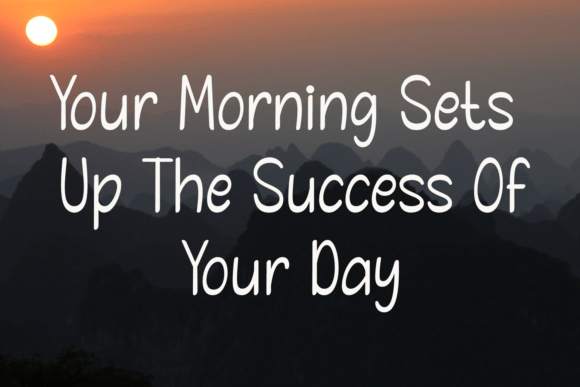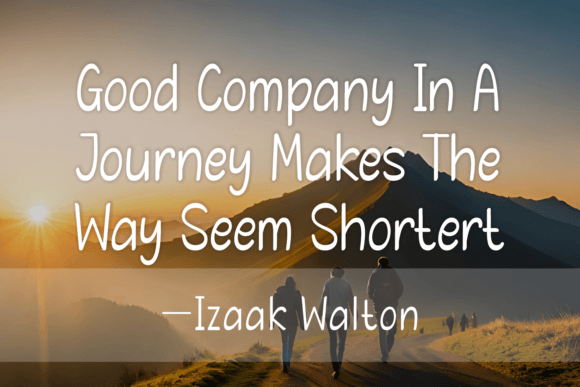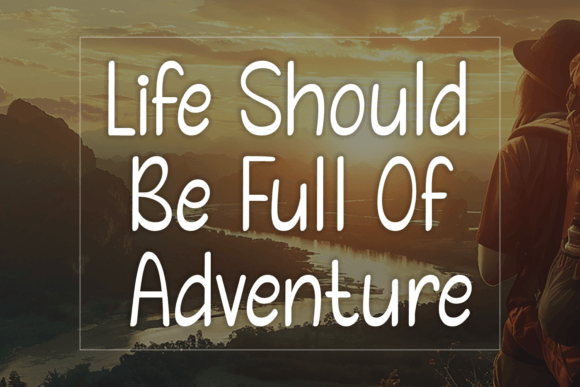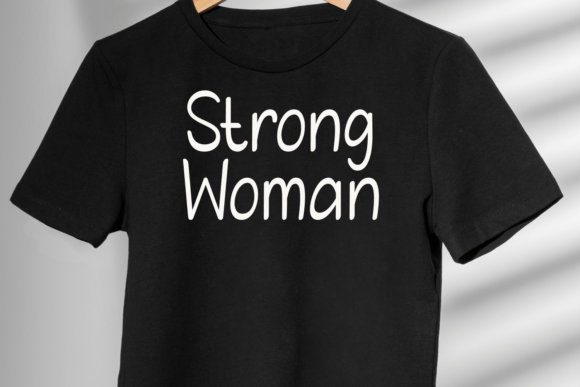
Introduction to Natural Grace Font
Natural Grace is a friendly handwritten typeface.
Natural Grace works across a wide range of design contexts, from personal stationery and invitations to lifestyle blogs and playful branding Its friendly and approachable style makes it suitable for both small text and large headlines.
Key Features of Natural Grace Font
Why Choose Natural Grace Font?
Natural Grace Font offers exceptional quality and versatility, making it a valuable addition to your design toolkit. Whether you’re creating for personal projects or commercial use, Natural Grace Font delivers professional results.